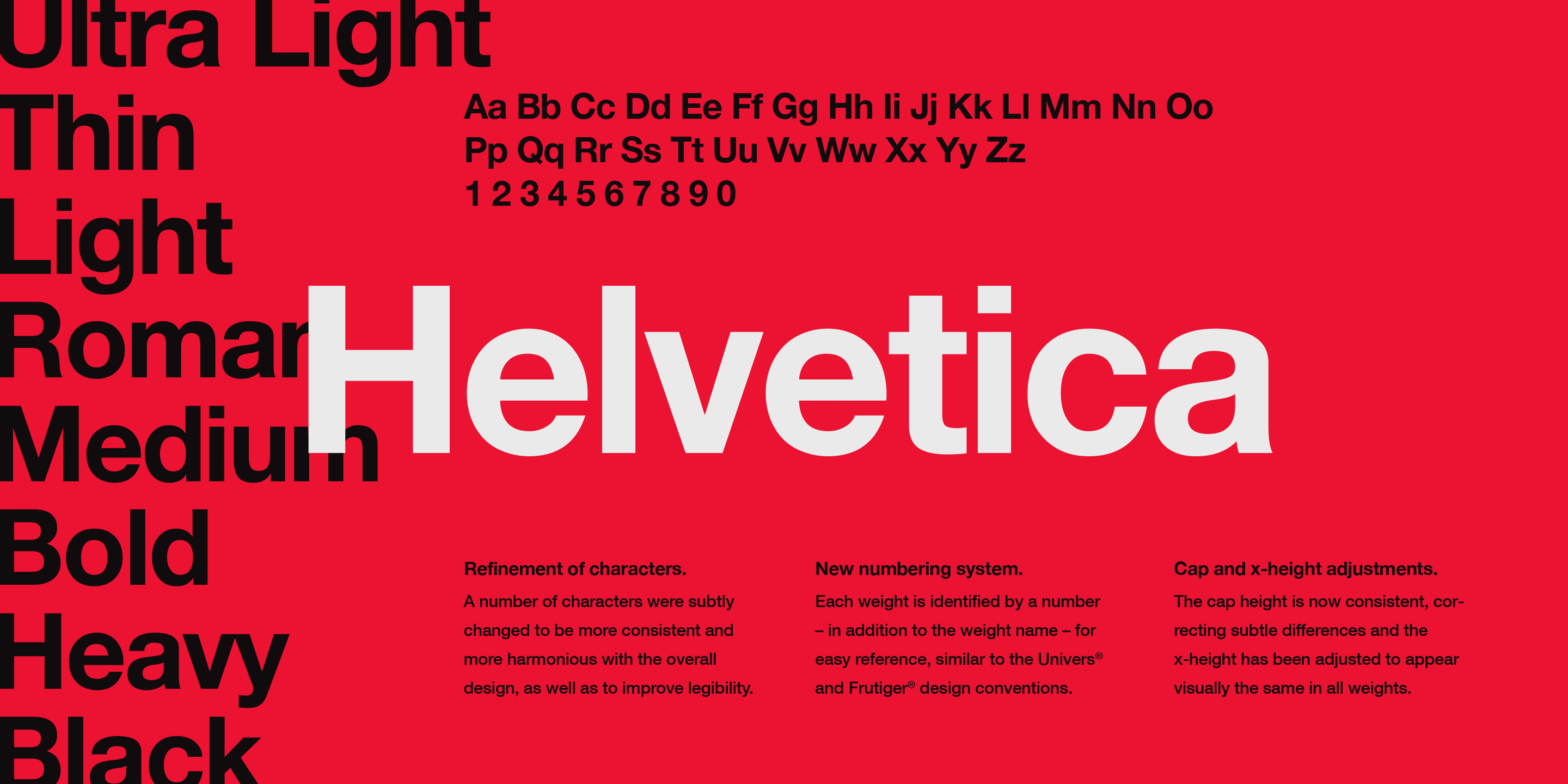
Helvetica Font is an iconic and ubiquitous sans-serif typeface, globally recognized for its exceptional clarity, neutrality, and timeless modernism. Its meticulously balanced letterforms and uniform stroke widths make it an unparalleled choice for corporate branding, wayfinding and signage systems, editorial design, and digital interfaces. Imagine it providing pristine readability for a major airline's livery, gracing the logo of an international technology giant, or ensuring impeccable clarity on a public transportation map. This font is also superb for advertising campaigns, government documents, and any project where universal appeal, professionalism, and an unassailable visual identity are key. It doesn't just display text; it asserts a clean, confident message that transcends language and culture.
What makes Helvetica Font so exciting is its almost invisible presence, allowing the message to take center stage without any stylistic distractions. It embodies the pinnacle of Swiss design principles, prioritizing functionality and legibility above all else. This unique neutrality makes it incredibly versatile, capable of conveying everything from high-tech innovation to humanitarian appeals, without losing its inherent clarity. It’s a font that speaks with an objective and authoritative voice, making it ideal for brands and content creators who want to convey reliability, modernity, and a sophisticated, straightforward aesthetic. Its enduring appeal has cemented its place as one of the most influential and widely used typefaces in history.
The Helvetica Font family is exceptionally comprehensive, offering a vast array of weights, widths, and styles, making it a true super-family system adapted for countless applications. You can expect to find a rich spectrum of options to support diverse layout needs, including:
Helvetica UltraLight
Helvetica Thin
Helvetica Light
Helvetica Regular / Roman
Helvetica Medium
Helvetica Bold
Helvetica Heavy
Helvetica Black
Helvetica Compressed (in various weights)
Helvetica Condensed (in various weights)
Helvetica Extended (in various weights)
Helvetica Oblique / Italic (for most, if not all, weights and widths)
Helvetica Neue (a modernized and expanded version with even more weights and refined spacing)
These numerous variations empower designers to create complex visual hierarchies, emphasize important information, and maintain a consistent, polished, and universally recognized look throughout all digital and print assets. The opportunity to utilize Helvetica Font Free Download is an excellent way to experience its versatile elegance and enduring appeal for your personal projects.